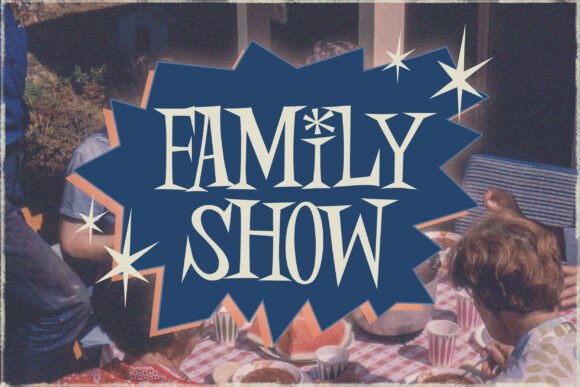
Pale Martini Font
Pale Martini is a mid century & retro style font. Its perfect for your display or product designs such as shirts, poster designs, stickers, logos, branding, greeting cards, Cricut projects, posters, magazines, social media, planner prints and websites.